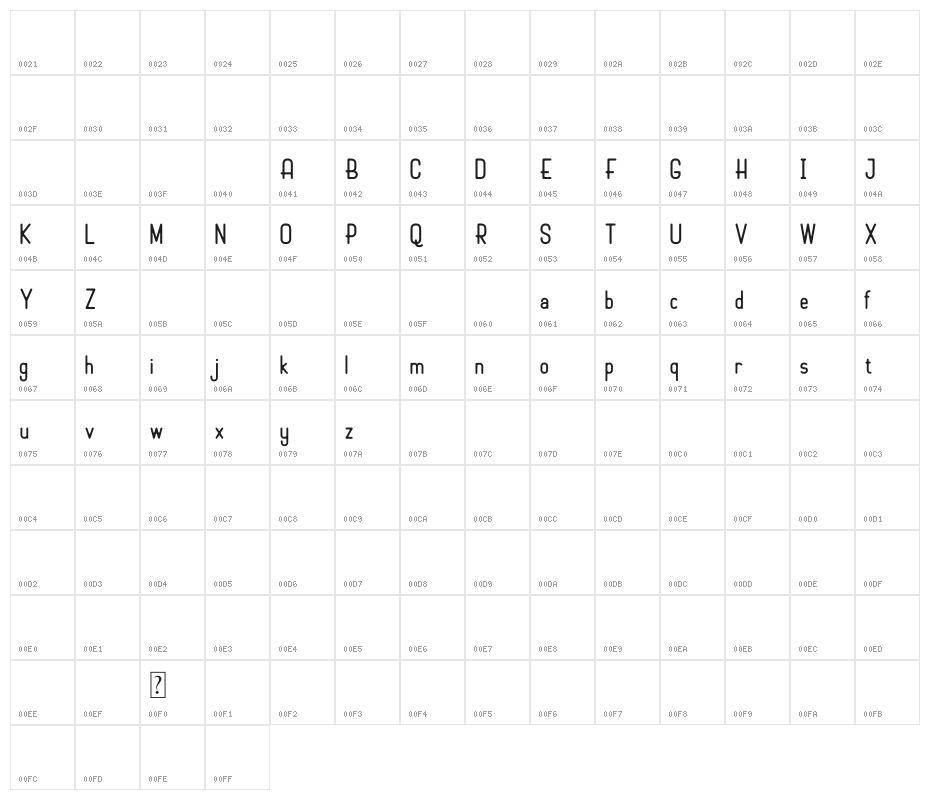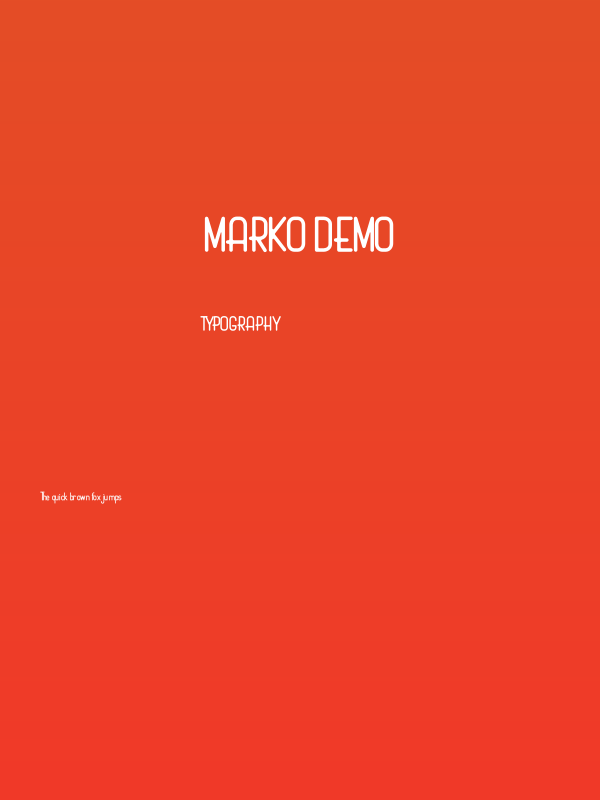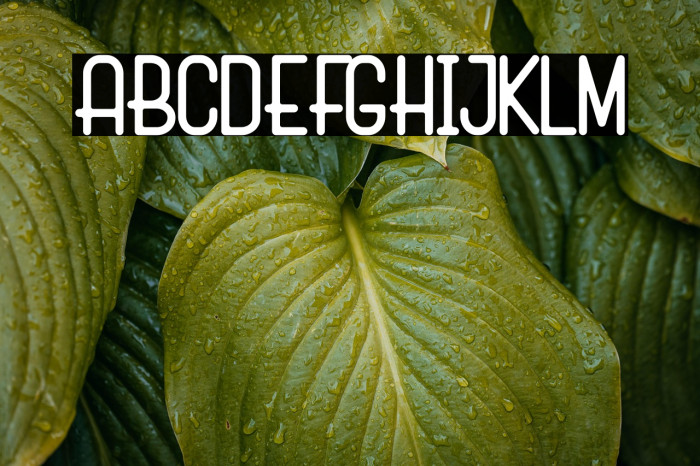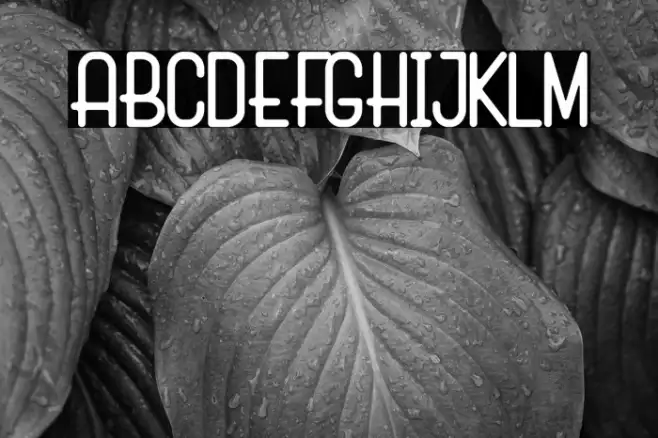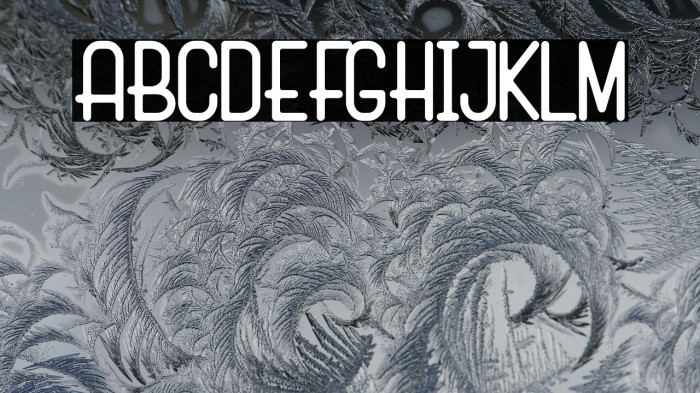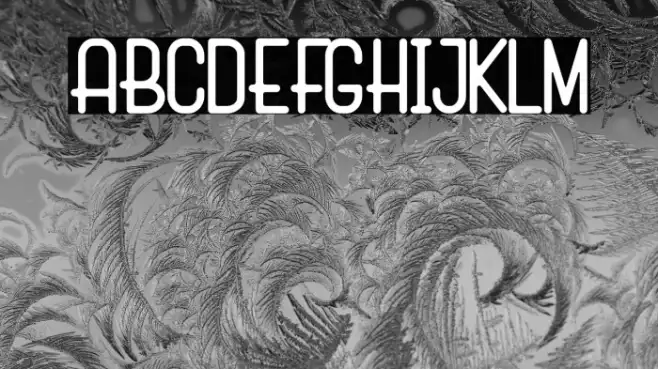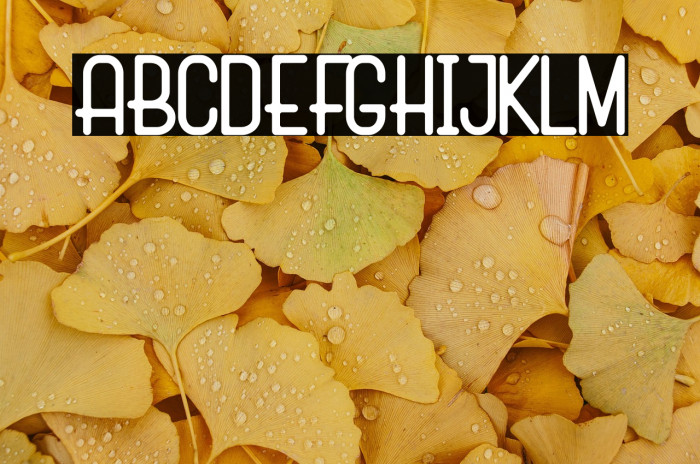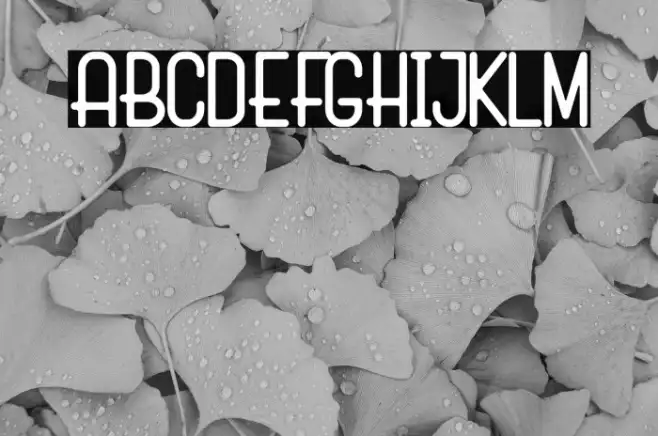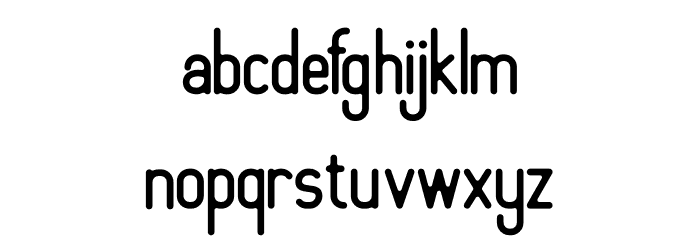
Marko Demo Font
Marko Demo Description
This font features a playful and modern design with rounded edges and a slightly condensed structure. The characters have a consistent stroke width, giving it a clean and uniform appearance. The uppercase letters are tall and narrow, while the lowercase letters maintain a similar width, creating a harmonious balance. The font's unique style is characterized by its rounded terminals and smooth curves, making it visually appealing and easy to read. It exudes a friendly and approachable vibe, suitable for a variety of design projects.